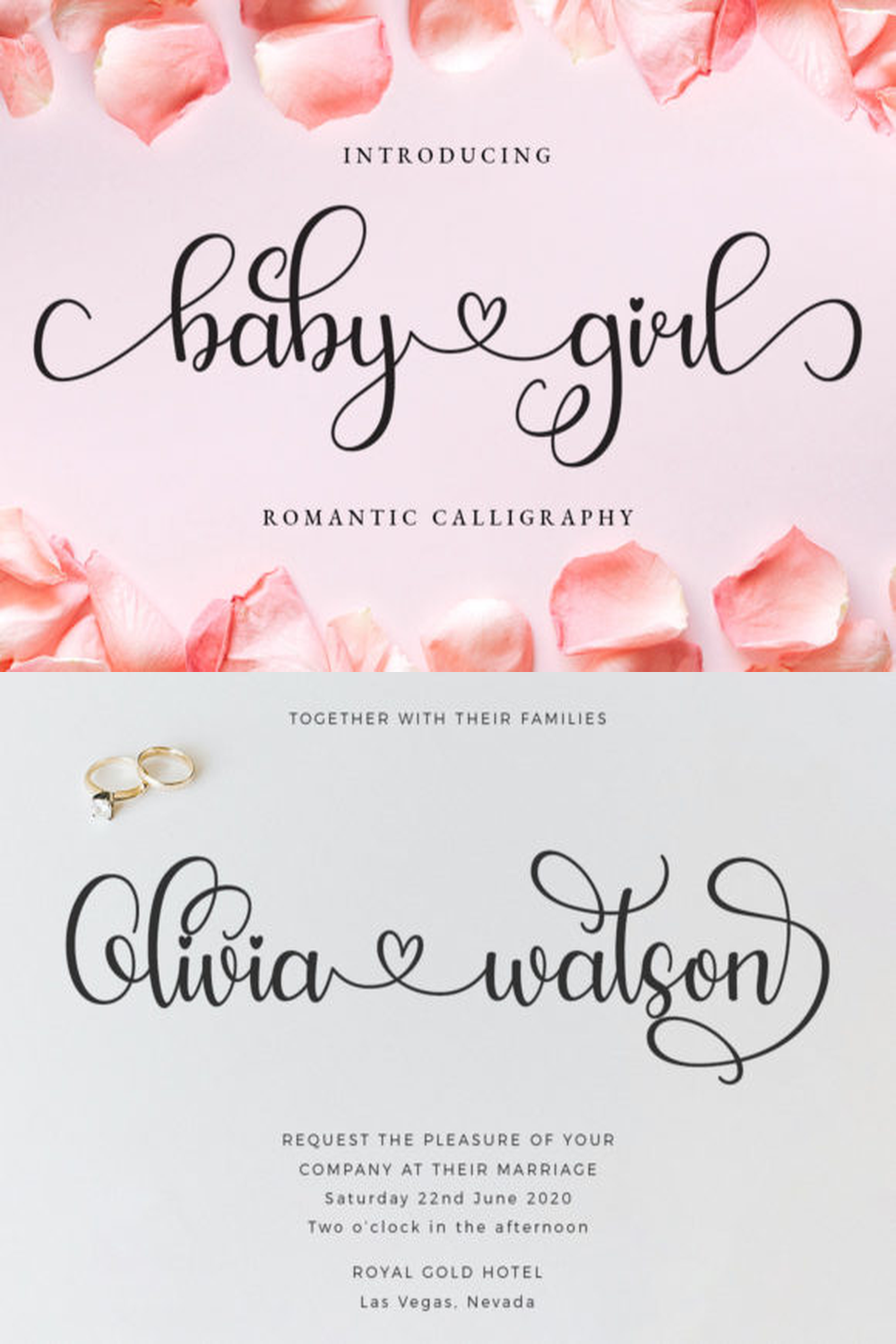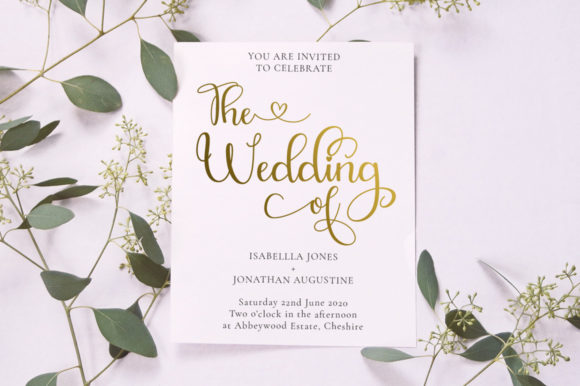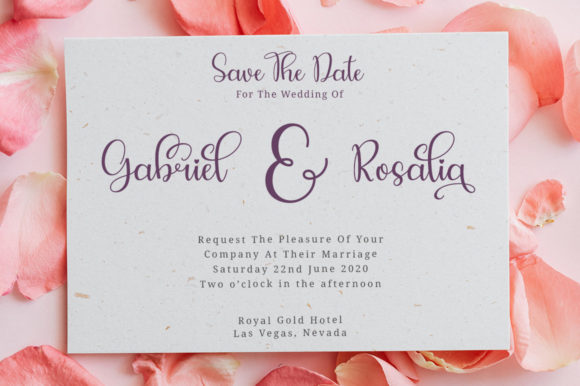
About the Baby Girl Font
From logos to headlines, the Baby Girl Font is the perfect choice for making a lasting impression. Baby Girl is a lovely script font featuring charming, playful characters that seem to dance along the baseline. This font is PUA encoded which means you can access all of the glyphs and swashes with ease!